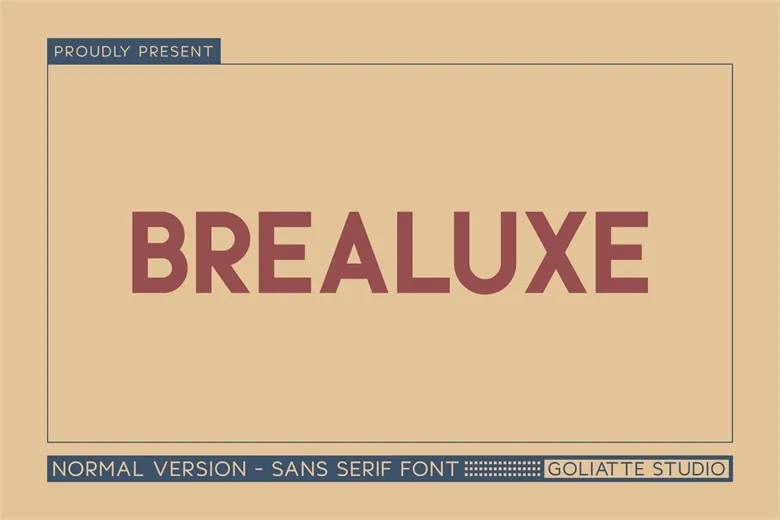
Brealuxe Font
Brealuxe is a modern uppercase sans serif typeface that’s great for designers who want something simple and up to date. With its clean lines and simple look, this font gives off a strong and confident feel. It is great for tasks where you want to show some seriousness or make something stand out. Whether you’re making a logo or just making a document for print, Brealuxe looks really clean and bold with its clear, sharp lines.